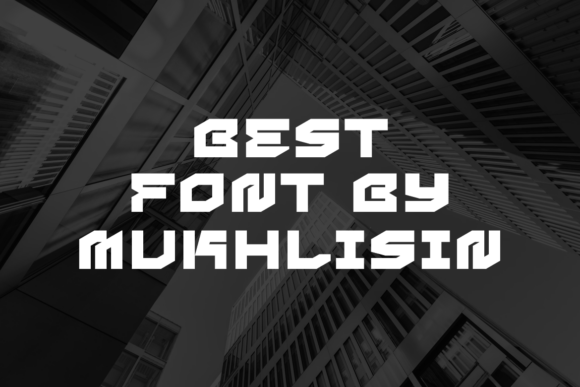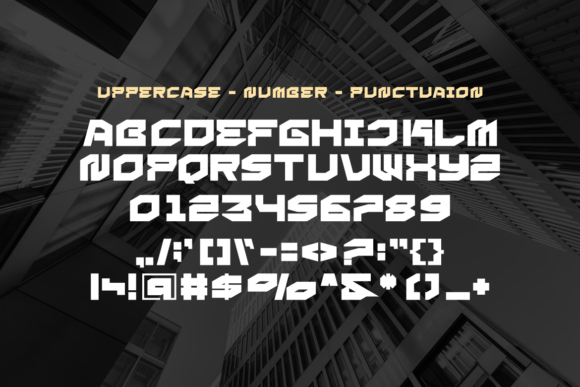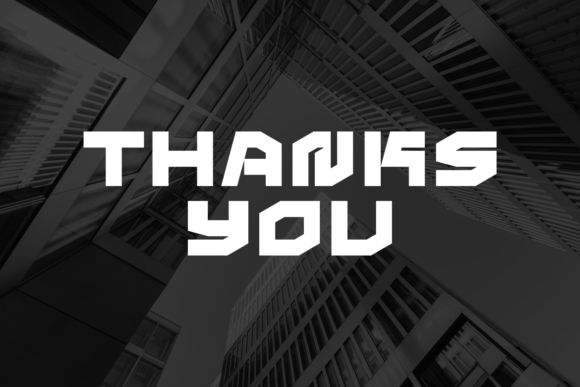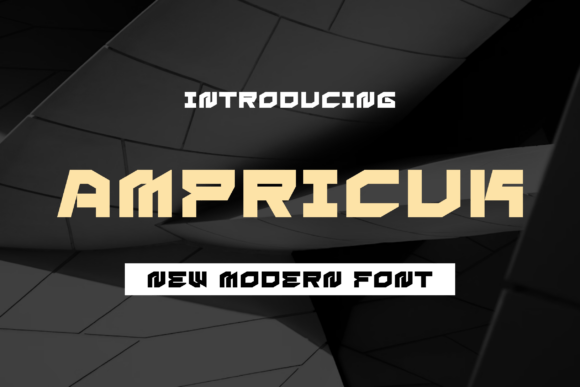
Discover the Unique Charm of Ampricuk Font: Elevate Your Designs to New Heights
In the vast world of typography, finding a font that truly stands out from the crowd can be a daunting task. However, if you’re on the hunt for something that can add a fresh touch to your creative projects, look no further than the Ampricuk font. This incredibly unique sans serif font is masterfully designed to capture the hearts of designers and crafters alike, bringing each of your creative ideas to the highest level.
What Makes Ampricuk Font So Special?
Ampricuk is not just another font; it’s an experience. Its sans serif design gives it a clean and modern look, making it perfect for a wide range of applications, from digital projects like websites and mobile apps to print materials such as posters, brochures, and business cards. The beauty of Ampricuk lies in its simplicity and the elegance it brings to any design.
Key Features of Ampricuk Font
• Unique Sans Serif Design: The font boasts a unique take on the sans serif family, offering a fresh perspective that can set your designs apart.
• High Versatility: Whether you’re working on a digital project or a print-based design, Ampricuk adapts seamlessly, ensuring your work looks great across various mediums.
• Ease of Readability: One of the key strengths of Ampricuk is its readability. Even at smaller sizes, it remains clear and legible, making it ideal for body text and headings.
• Modern Aesthetic: With its clean lines and contemporary feel, Ampricuk brings a modern aesthetic to your designs, ensuring they feel current and engaging.
The Benefits of Using Ampricuk Font
Choosing Ampricuk for your typography needs comes with several benefits:
• Uniqueness: Stand out in a crowded field with a font that is distinctly different from the standard offerings.
• Professionalism: The clean and modern design of Ampricuk lends a professional air to your projects, making them suitable for clients and audiences of all kinds.
• Creativity: With Ampricuk, your creative possibilities are virtually endless. Its versatility means it can be used in a multitude of design scenarios.
Ampricuk font is more than just a typeface; it’s a tool that can elevate your designs, making them more engaging, modern, and professional. Its unique sans serif design, combined with its versatility and readability, makes it an excellent choice for designers and crafters looking to bring their creative ideas to life. Whether you’re working on a digital project or a print-based design, Ampricuk has the potential to become your new favorite font, helping you to create works that resonate with your audience and leave a lasting impression.